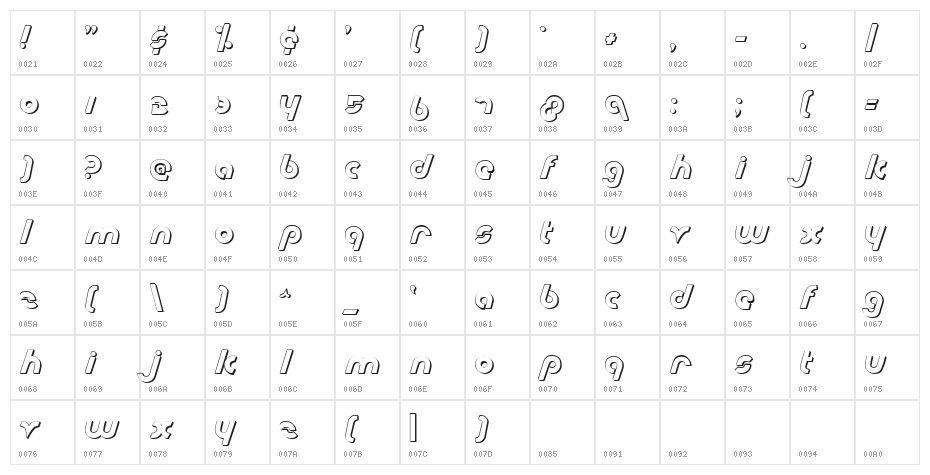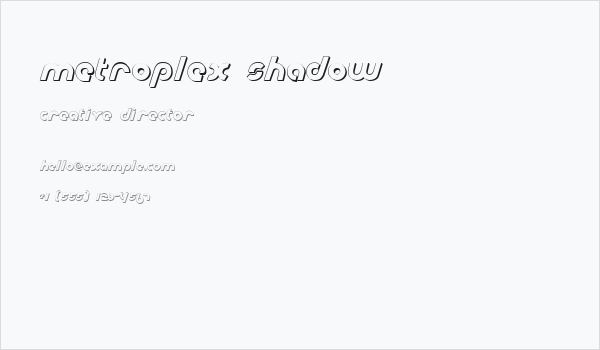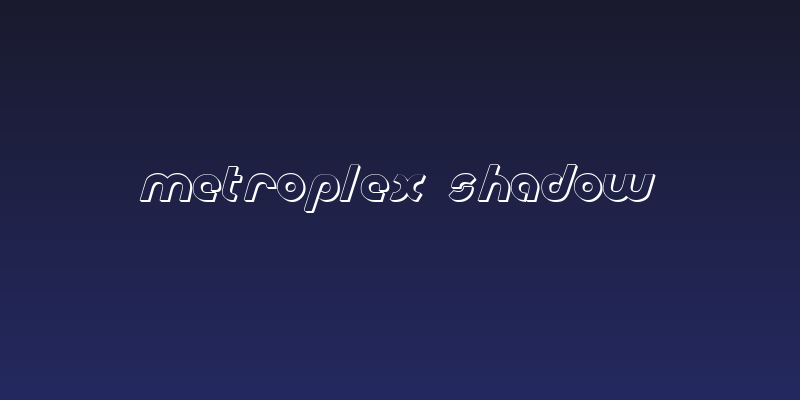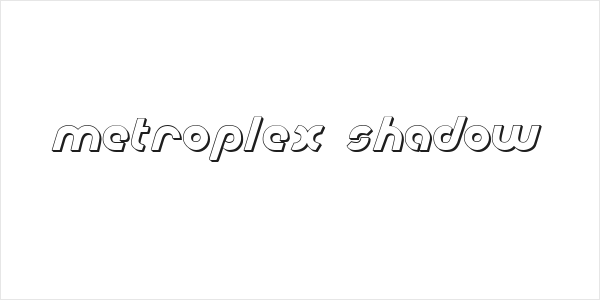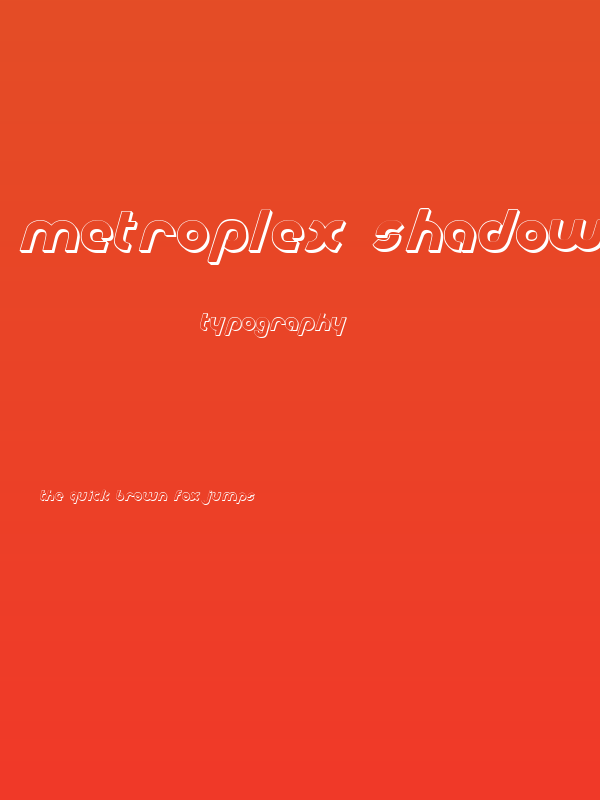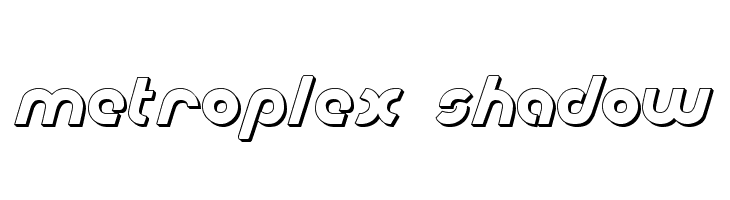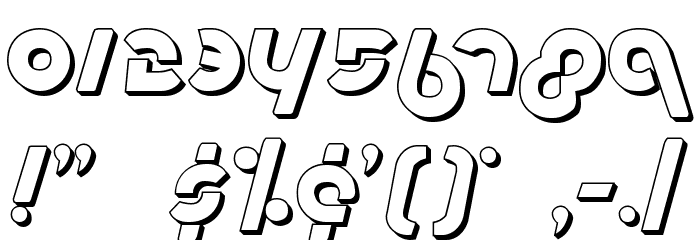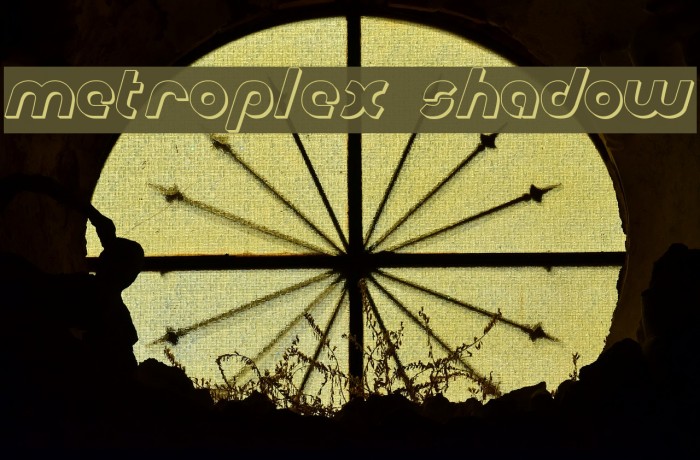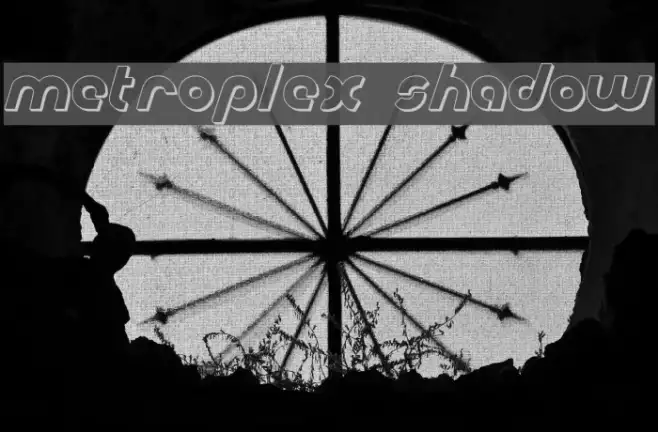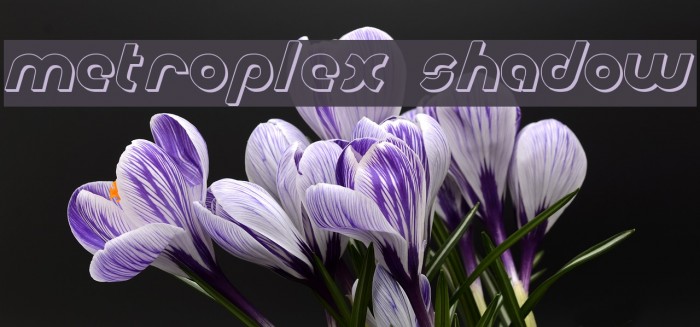
Metroplex Shadow Font
Metroplex Shadow Description
This font features a bold, shadowed style with a modern and playful aesthetic. The characters are outlined with a distinct shadow effect, giving them a three-dimensional appearance. The design is geometric, with smooth curves and clean lines, creating a sense of depth and movement. The uppercase and lowercase letters maintain a consistent style, while the numerals and special characters complement the overall look. This font is ideal for projects that require a dynamic and eye-catching typeface.
| Proposed Projects | Ideal for posters, logos, headlines, and any design project that requires a striking and modern typeface. |